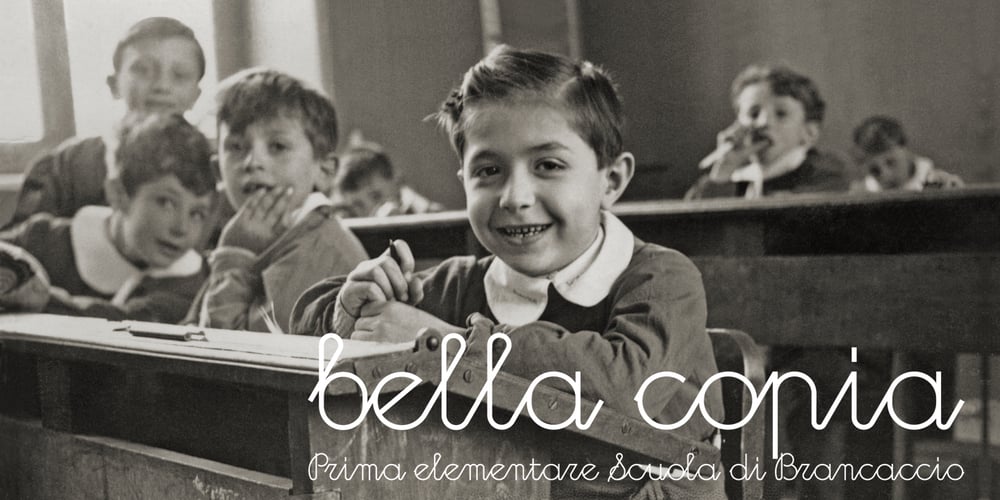
Bella Copia Font Family was designed by Vincenzo Crisafulli and published by Vincenzo Crisafulli. Bella Copia contains 1 styles and family package options. Bella Copia is a font dedicated to the world of childhood, to the writing of primary school children, but can also be used to compose texts or express essential concepts.It can be used for food, fashion, logos and much more. The clarity in the sign wants to express simplicity and immediacy. As far as possible, what is “not needed” has been taken away from individual glyphs.In the illustrations an attempt has been made, by combining images with fonts, to express the concept of cleanliness, simplicity and clarity. It is composed of 314 glyphs to try to embrace as many languages as possible.